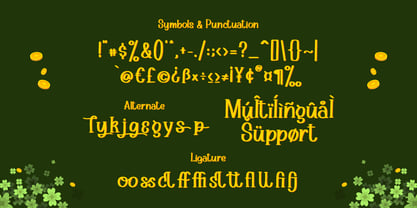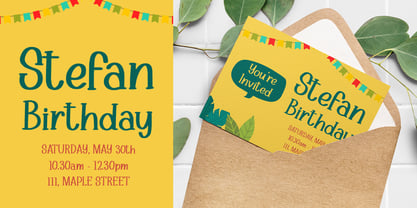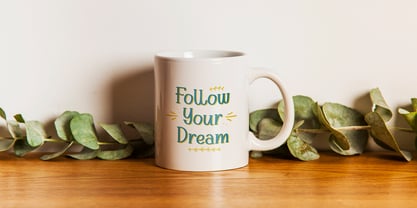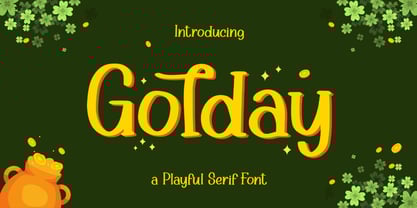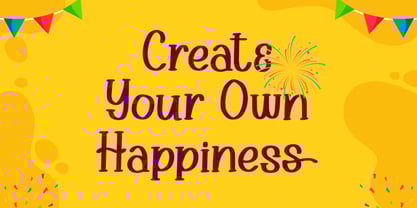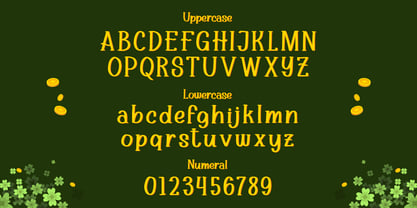
Golday
Golday is a playful serif font.
Golday has a fun and cheerful vibes suited for playful kids theme.
Adorable and funny, this serif font will be the ideal choice for any school project or playground design you wish to develop.
Features:
- Uppercase
- Lowercase
- Symbols & Punctuation
- Numeral
- Ligature
- Alternate
- Multilingual Support